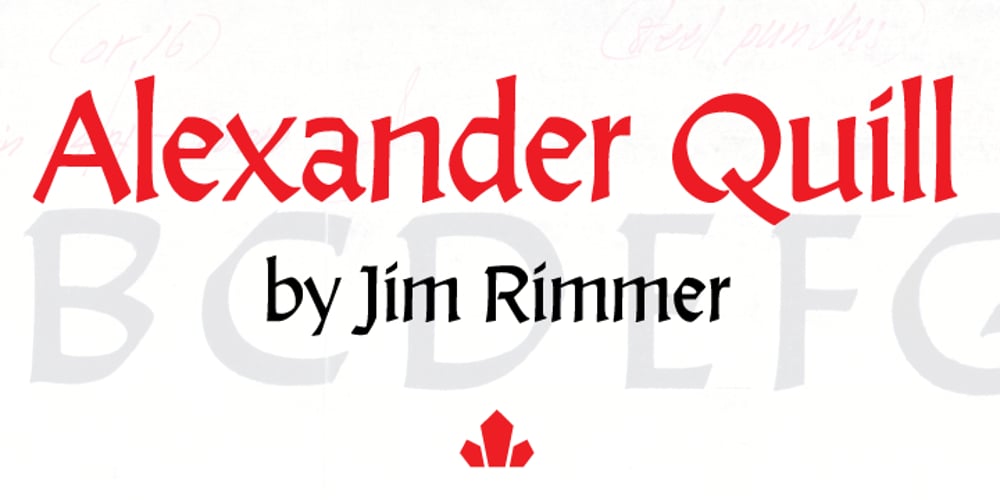
Alexander Quill
Alexander Quill font
Alexander Quill Font Family was designed by Jim Rimmer and published by Canada Type. Alexander Quill contains 1 styles and family package options. Alexander Quill was originally designed in the early 1980s to be cut in 14 point for casting into foundry type for the setting and printing of limited edition books at Pie Tree Press, Jim Rimmer’s private sanctum. This alphabet exhibits traditional calligraphic tension, which helps its simple, somewhat octagonal forms play well together for an easy read. Its setting expresses a dramatic sense of history or fantasy. Alexander Quill was updated and remastered for the latest technologies in 2012. It comes with plenty of built-in alternates, a glyphset of over 410 characters, and supports the majority of Latin-based languges. 20% of this font’s revenues will be donated to the GDC Scholarship Fund, supporting higher typography education in Canada.